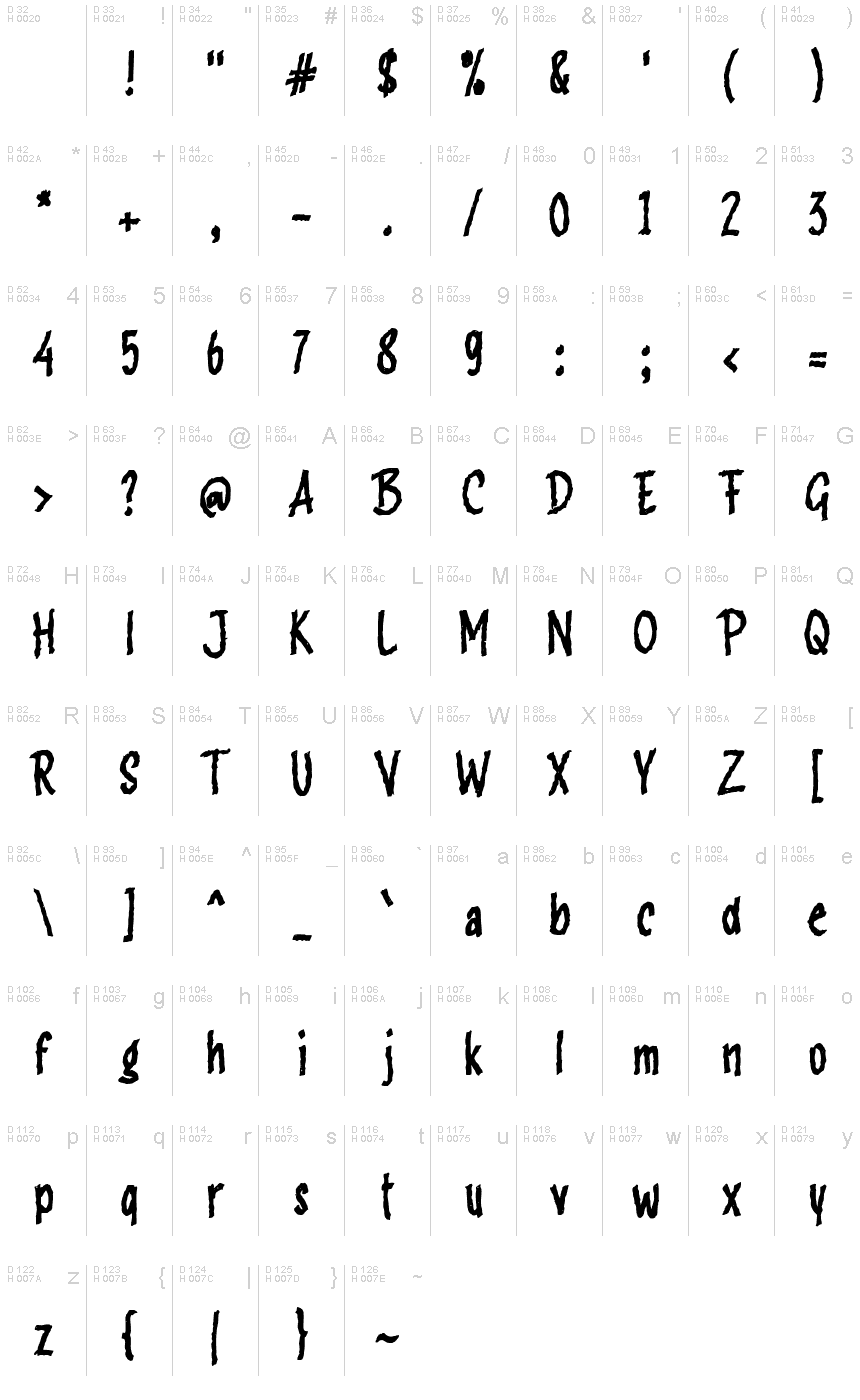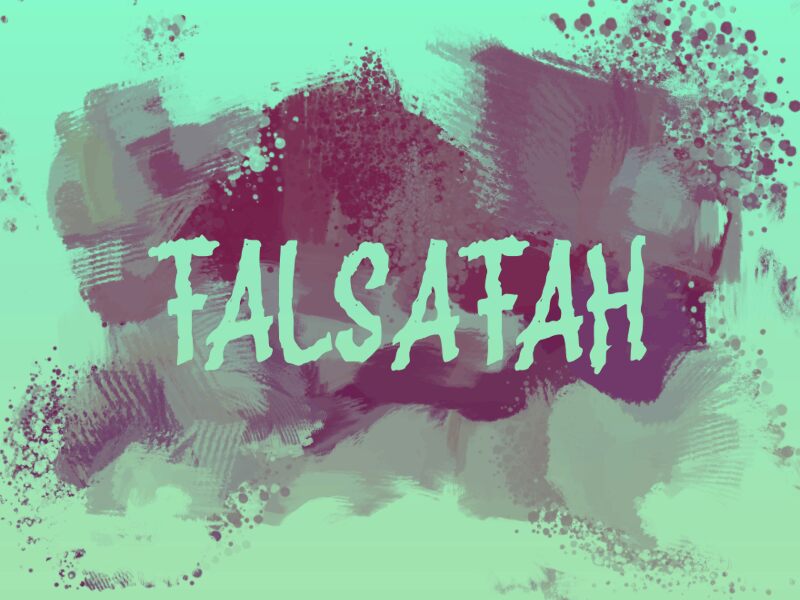
FALSAFAH
Falsafah, a script font by wep, adds an edgy touch to any project with its trash-style design. Its semi-bold weight commands attention, while the extra-condensed width exudes a sleek and modern appeal.
Perfect for album covers that want to showcase rebelliousness or fashion magazines aiming for an avant-garde look. Falsafah can also elevate event posters by infusing them with an urban vibe, or bring a captivating edge to branding materials that crave uniqueness.
Let Falsafah's distinct flair make your designs stand out from the crowd.